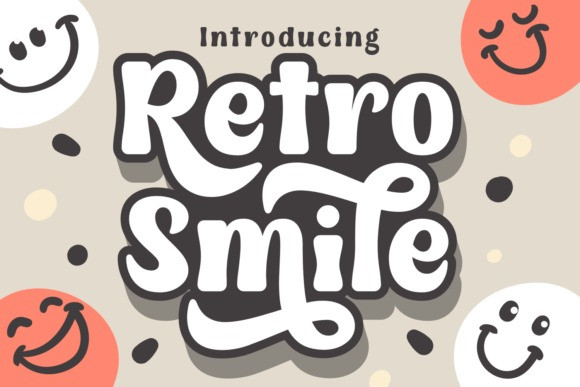
Retro Smile Font
Retro Smile Font is a charming and playful script display font with a vintage vibe. Its quirky letterforms and swooping curves add a touch of whimsy to any design. Perfect for logos, headlines, and packaging, Retro Smile evokes a sense of nostalgia while remaining fresh and modern.